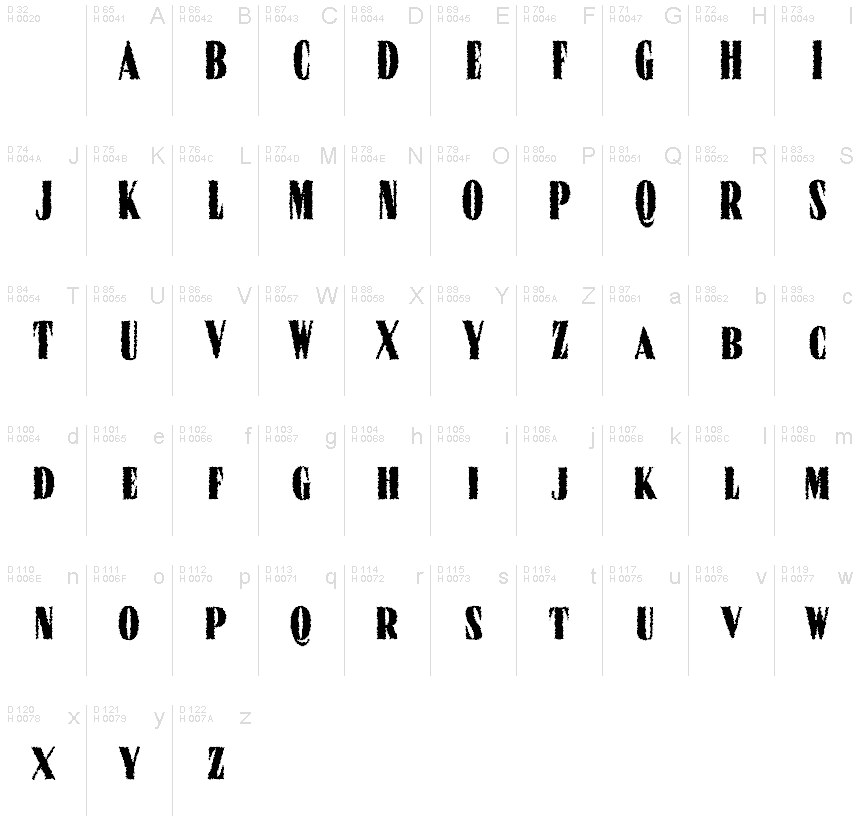
Náhled písma Norten Rough Regular Demo
Norten Rough font by Craft Supply Co. draws attention with its aggressive grungy style and jagged condensed structure. An impactful eroded retro design graces the letters that were given a bold weight to help them take center stage in your projects. This display font is free, making it an economical option for the next big visual your client demands.
The font is suitable for posters, magazine covers, album covers, movie titles and posters, sports branding ideas or event advertising/promotion as well. Furthermore, you could use it to give book covers an aggressive edge along with packaging and label designs on drink bottles or food items to name a few suggestions.